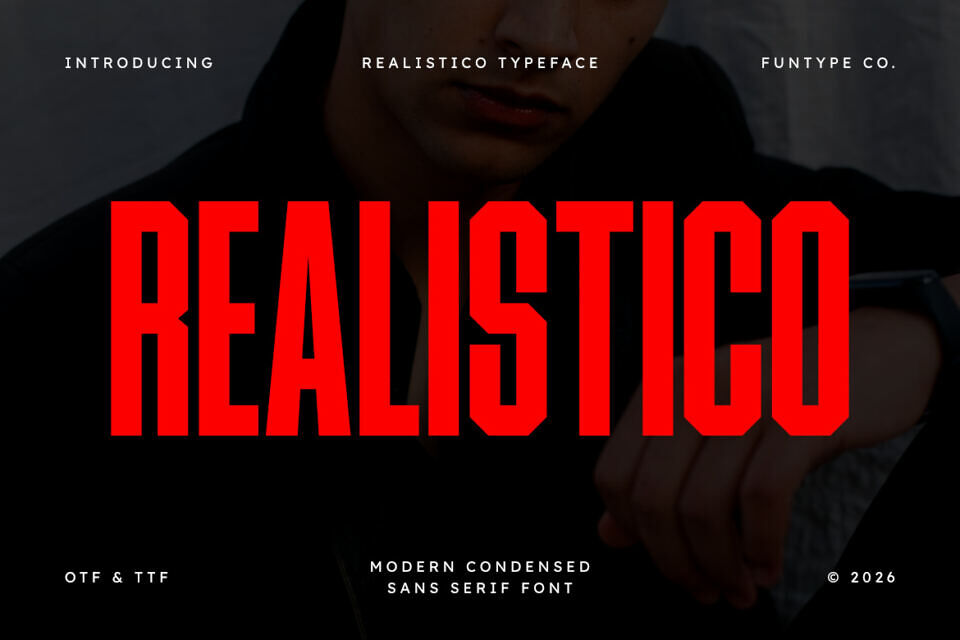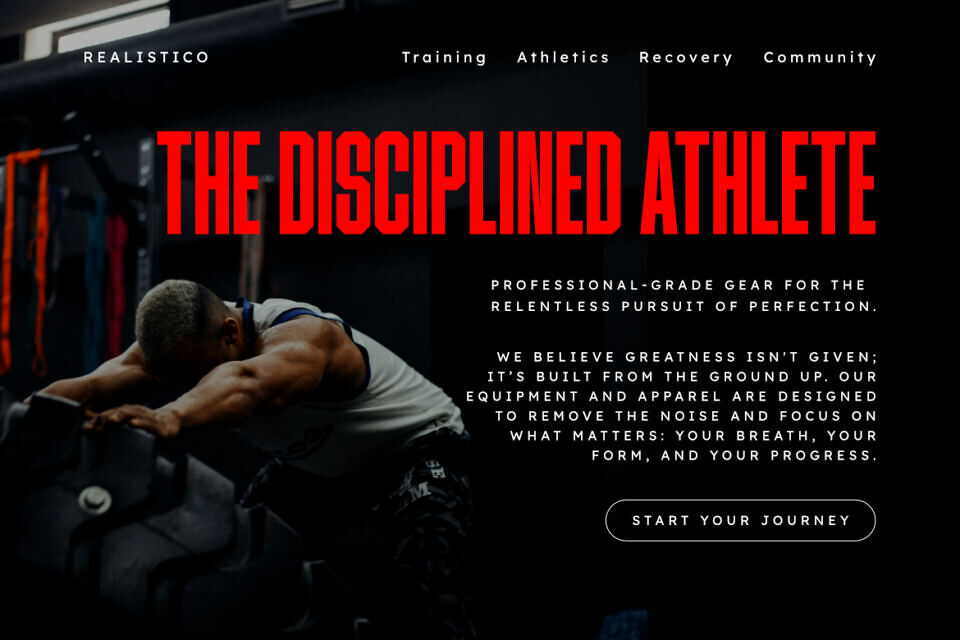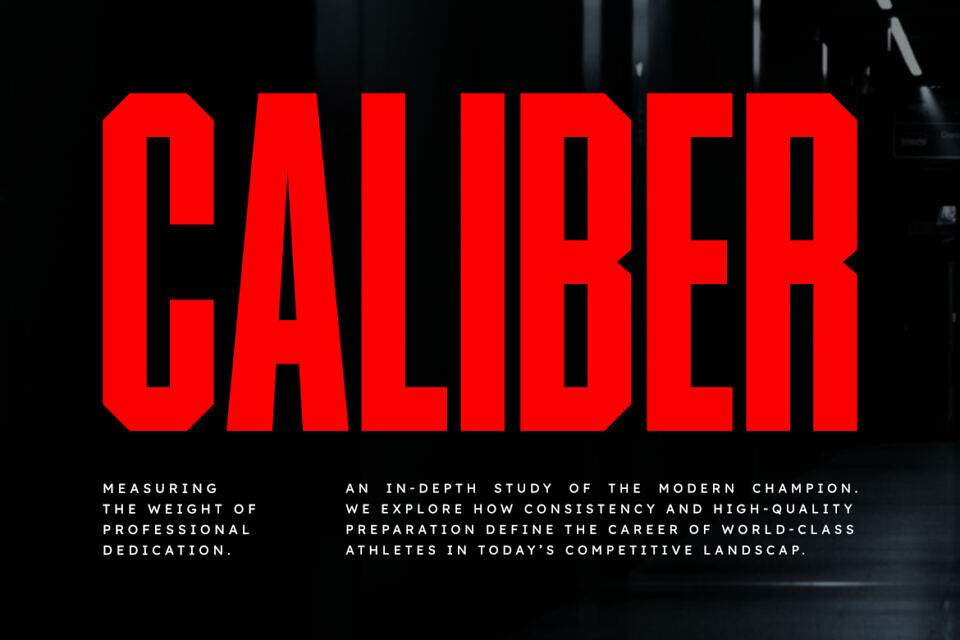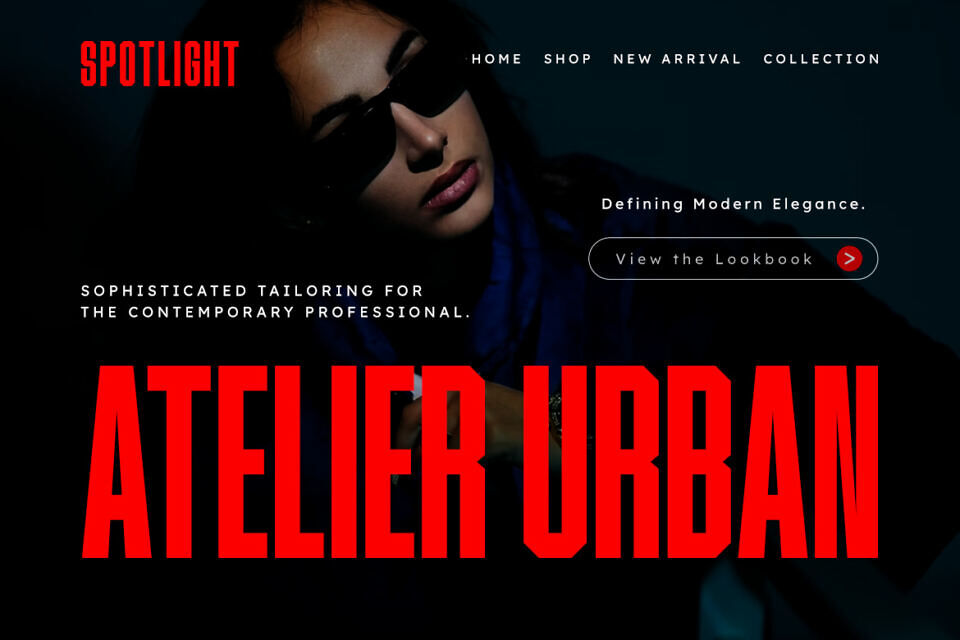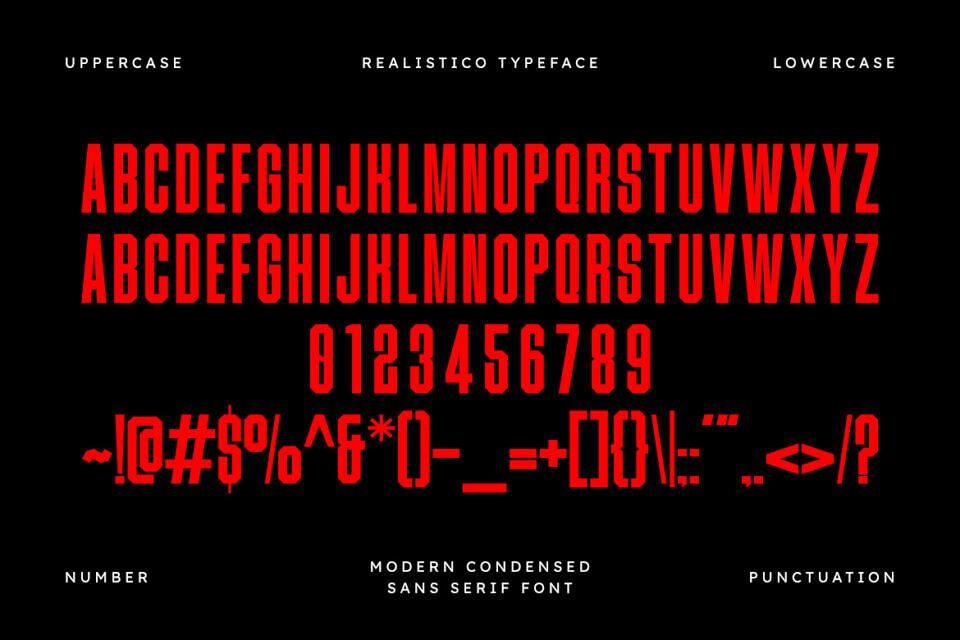
Realistico Font
Realistico is a sophisticated and powerful modern condensed sans serif font, thoughtfully designed to capture the essence of high-impact verticality and contemporary storytelling. With its tall structure, ultra-compressed width, and precise geometric angles, Realistico offers a professional aesthetic that brings a touch of commanding presence to any creative project.
Whether you are crafting a striking athletic brand identity, a sleek e-sports logo, or bold cinematic layouts, Realistico provides a seamless blend of modern edge and competitive power.